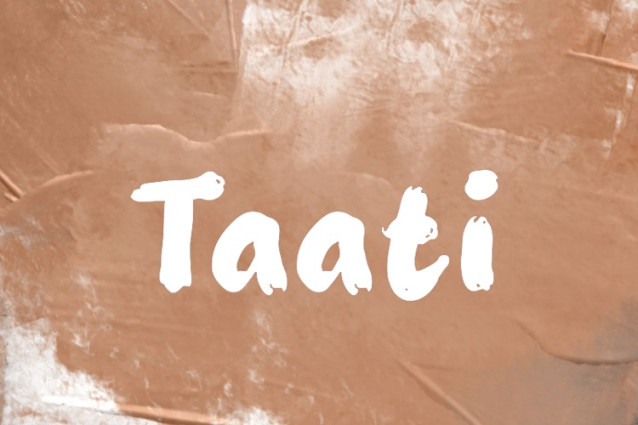
Taati Font
Taati Font, handwritten display brush font. You can use it for anything ranging from t-shirts, book designs, and greeting cards to stickers and posters, packaging designs, or anything that needs a casual touch, it will be your perfect font to pick. Fall in love with its incredibly versatile style, and use it to create lovely designs!